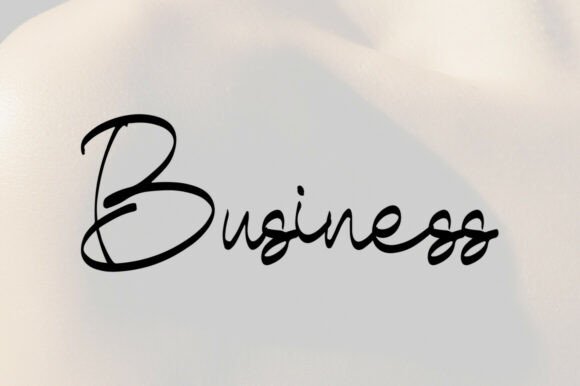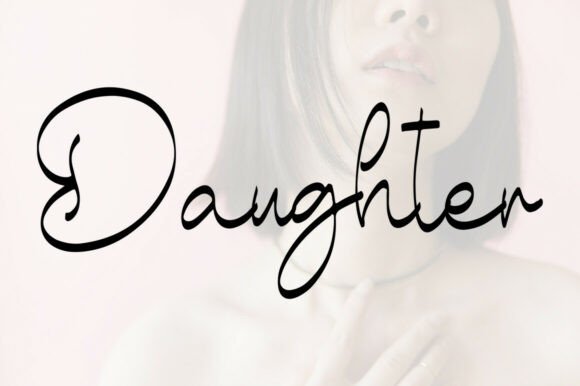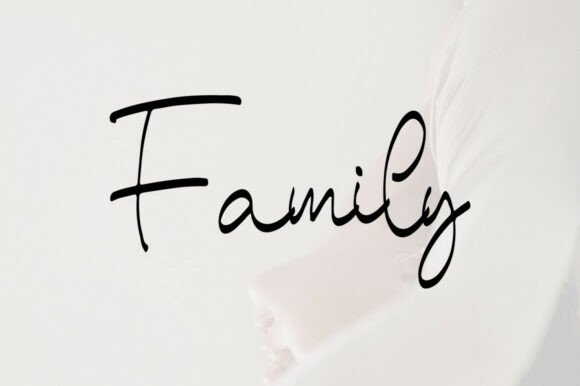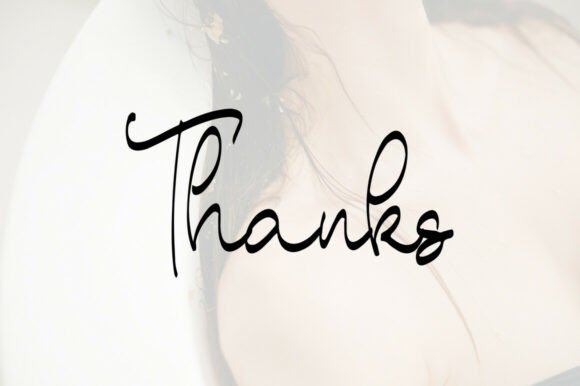
Introducing Handwork Font: Elevate Your Designs with Elegance and Sophistication
In the world of design, fonts play a crucial role in conveying the tone and personality of a project. For designers and crafters looking to add a touch of elegance and sophistication to their work, Handwork Font is an exceptional choice. This stylish and incredibly elegant handwritten font is perfect for a variety of design applications, from wedding invitations and thank you cards to quotes, greeting cards, logos, business cards, and more.
The Beauty of Handwork Font
Handwork Font boasts a unique, hand-crafted aesthetic that sets it apart from more traditional fonts. Its elegant, cursive script is characterized by flowing lines, subtle variations in line width, and a sense of organic, human touch. This font is designed to evoke a sense of luxury, sophistication, and refinement, making it an ideal choice for designers seeking to create high-end, bespoke designs.
Weddings, anniversaries, and other special occasions require a level of elegance and sophistication in their design elements. Handwork Font is specifically well-suited for these types of projects, adding a romantic and whimsical touch to wedding invitations, save-the-date cards, and other event-related materials. Its beautiful, flowing script is sure to impress and leave a lasting impression on recipients.
One of the standout features of Handwork Font is its versatility. While it excels in wedding and event designs, its elegant aesthetic also lends itself well to a wide range of other applications, including:
- Quotes and typography posters: Add a touch of sophistication to inspirational quotes and typography-focused designs.
- Greeting cards and stationery: Elevate everyday correspondence with beautifully designed greeting cards and stationery.
- Logos and branding: Use Handwork Font to create elegant, high-end logos and branding materials for luxury businesses.
- Business cards and resumes: Stand out from the crowd with stylish, professionally designed business cards and resumes.
Why Choose Handwork Font?
With so many fonts available, why choose Handwork Font for your design projects? Here are just a few compelling reasons:
- Unique and distinctive: Handwork Font offers a fresh, unique perspective on traditional handwritten fonts.
- Elegant and sophisticated: Its refined aesthetic is perfect for high-end designs and luxury brands.
- Versatile: Suitable for a wide range of design applications, from weddings to branding and advertising.
- Easy to read: Despite its elegant nature, Handwork Font remains highly legible, even at smaller sizes.
Tips for Using Handwork Font
To get the most out of Handwork Font, consider the following tips:
- Pair with contrasting fonts: Combine Handwork Font with simpler, sans-serif fonts to create visual interest and hierarchy.
- Experiment with colors: Try pairing Handwork Font with a range of colors, from metallic gold and silver to soft pastels.
- Pay attention to spacing: Ensure that your design has sufficient white space to allow Handwork Font to breathe and shine.
Handwork Font is an exceptional choice for designers and crafters seeking to add a touch of elegance and sophistication to their work. With its unique, hand-crafted aesthetic and versatile design applications, this stylish font is sure to elevate your designs and leave a lasting impression on your audience. Whether you’re working on a wedding invitation, logo, or greeting card, Handwork Font is the perfect choice for those who value beauty, refinement, and style.